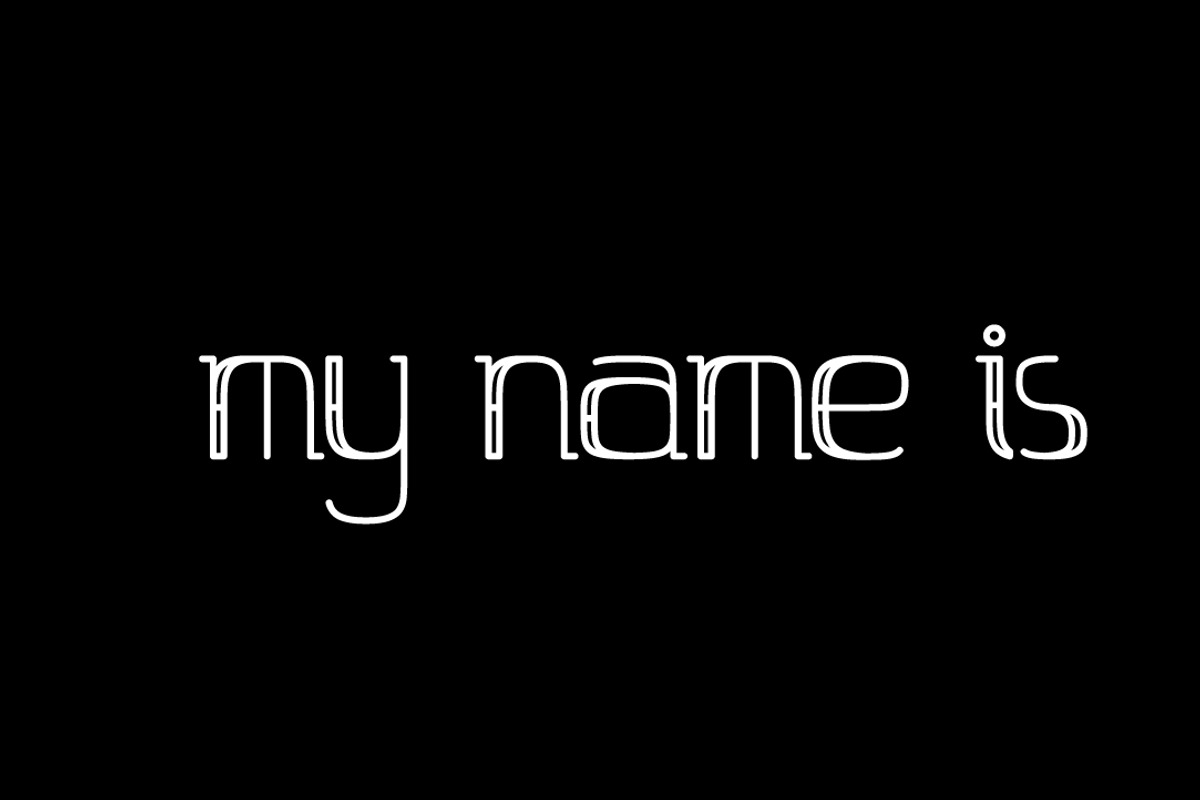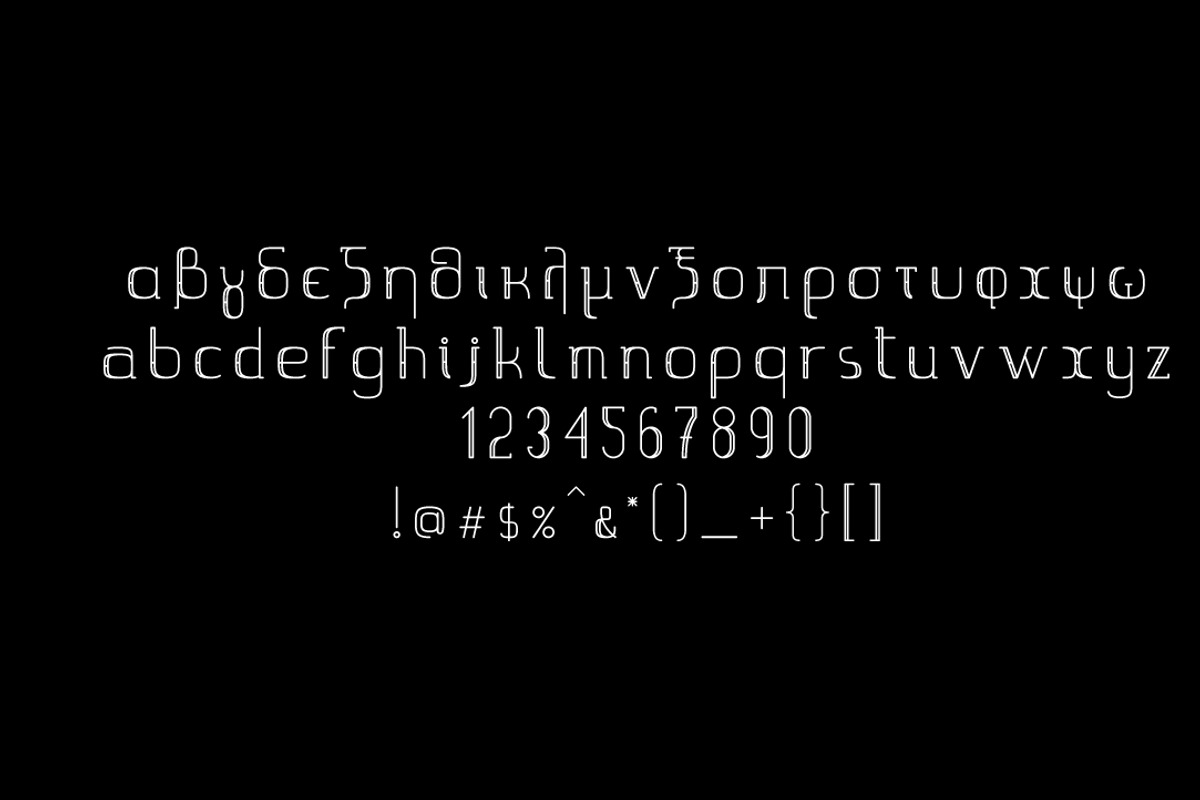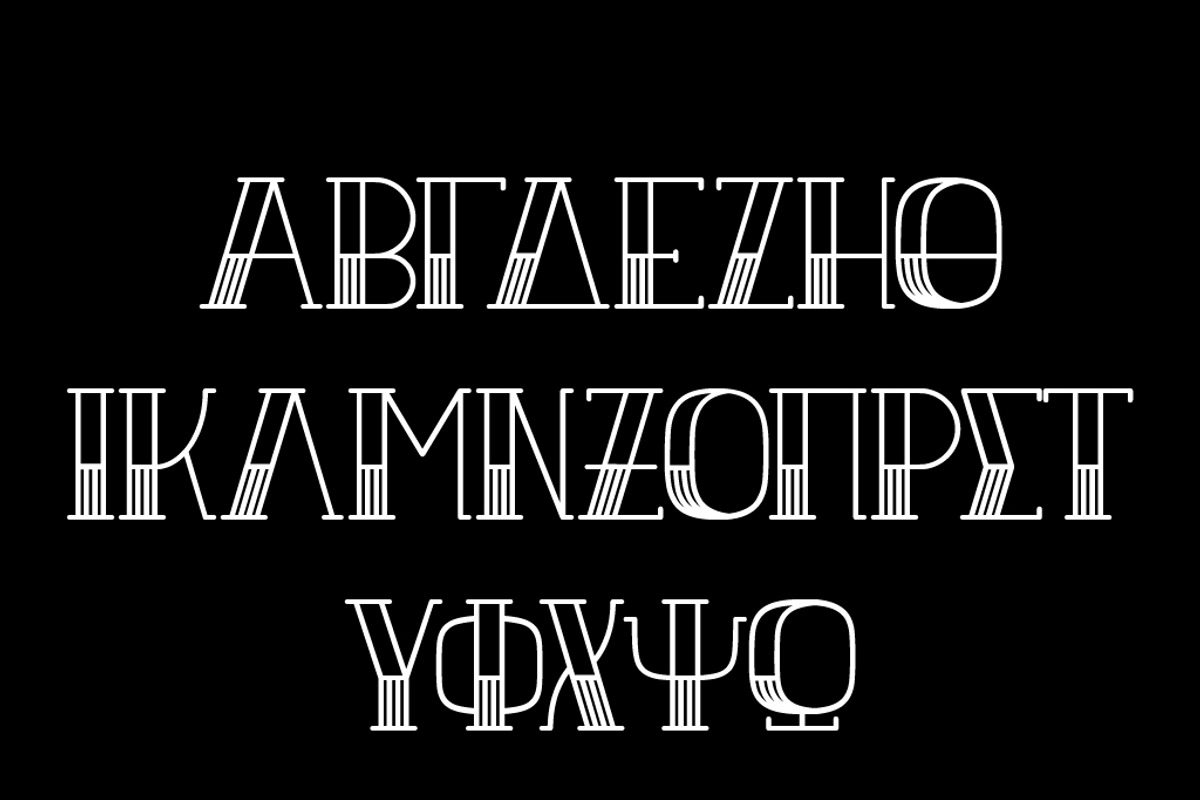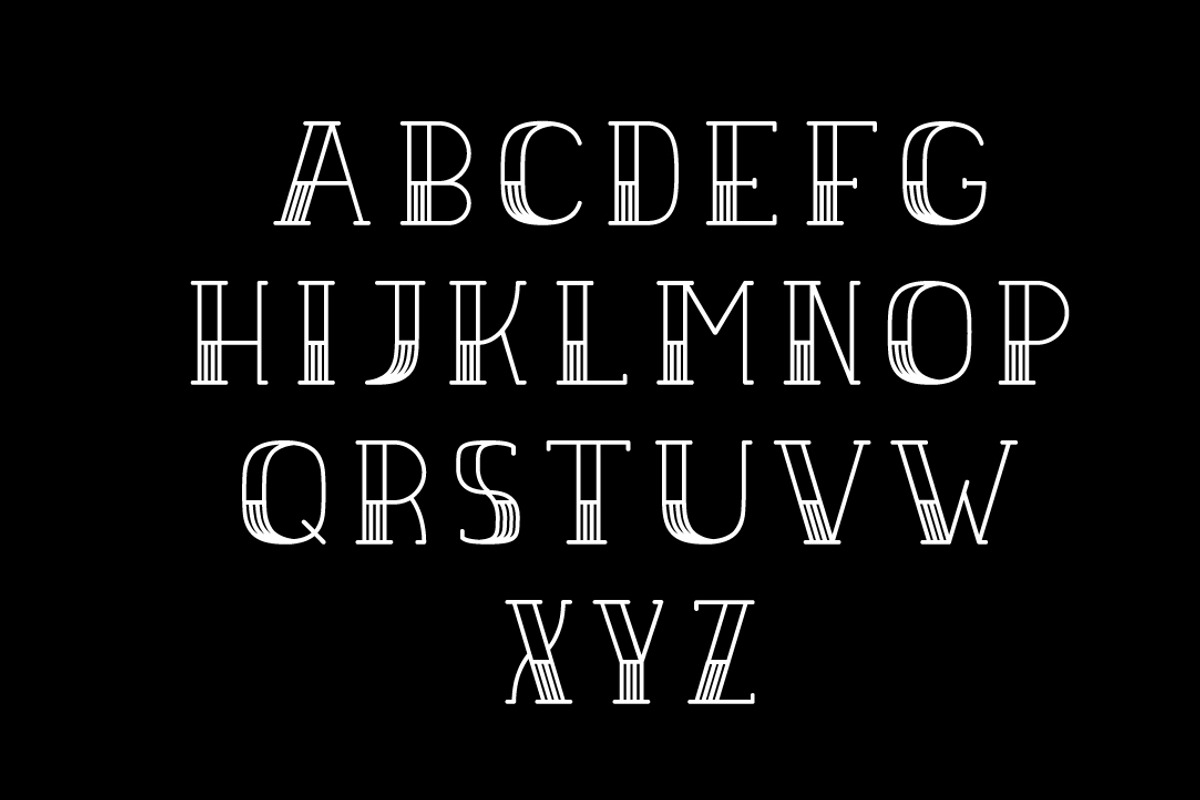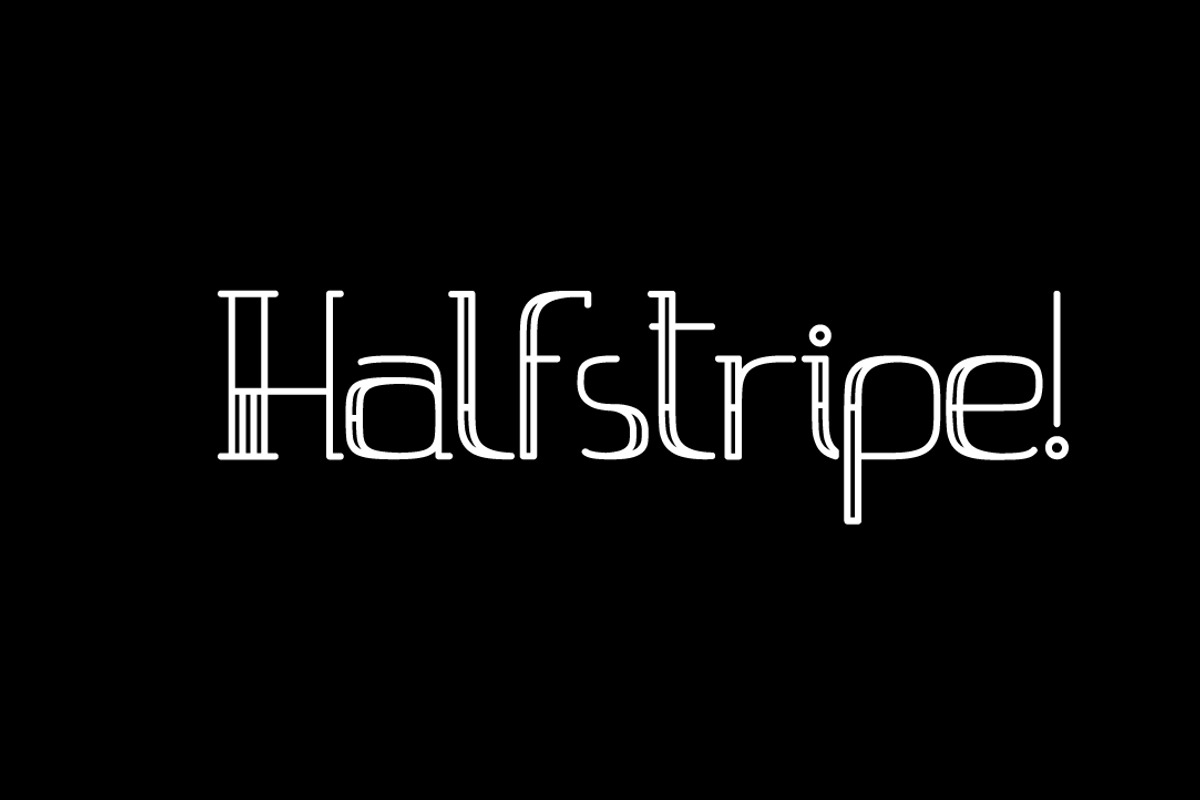
Halfstripe font
Halfstripe font by george.nikolaidis is a font selected for branding, posters, packaging, typography.
Why Halfstripe font is worth a look
Halfstripe font by george.nikolaidis fits naturally into Branding, posters, packaging, typography.